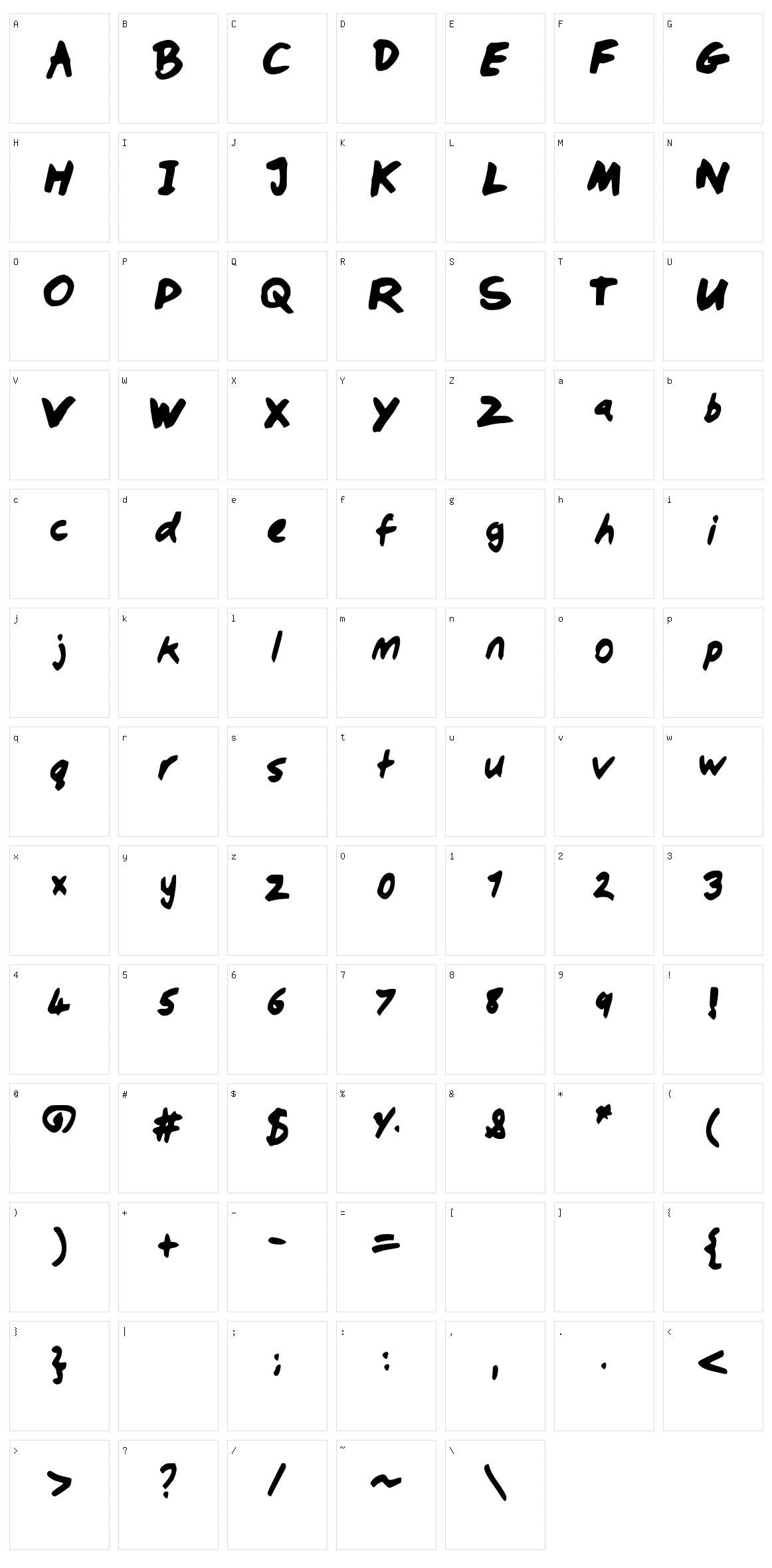
The free font Dobbo Chisel is carefully designed by Paul Dobbin, showcasing a thoughtful balance of creativity and usability and falls under the Script font style. When you download the ZIP file, it contains only 21.29 KB of font files, making it lightweight and quick to download. Please review the license details below to understand permitted usage and distribution rights. If license information is not available, we recommend using this font for personal projects only or contacting the author directly for commercial usage permissions.